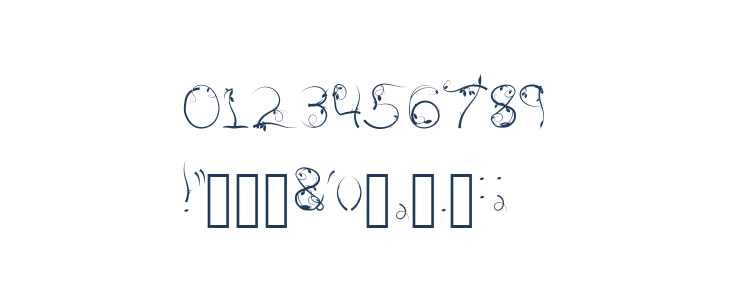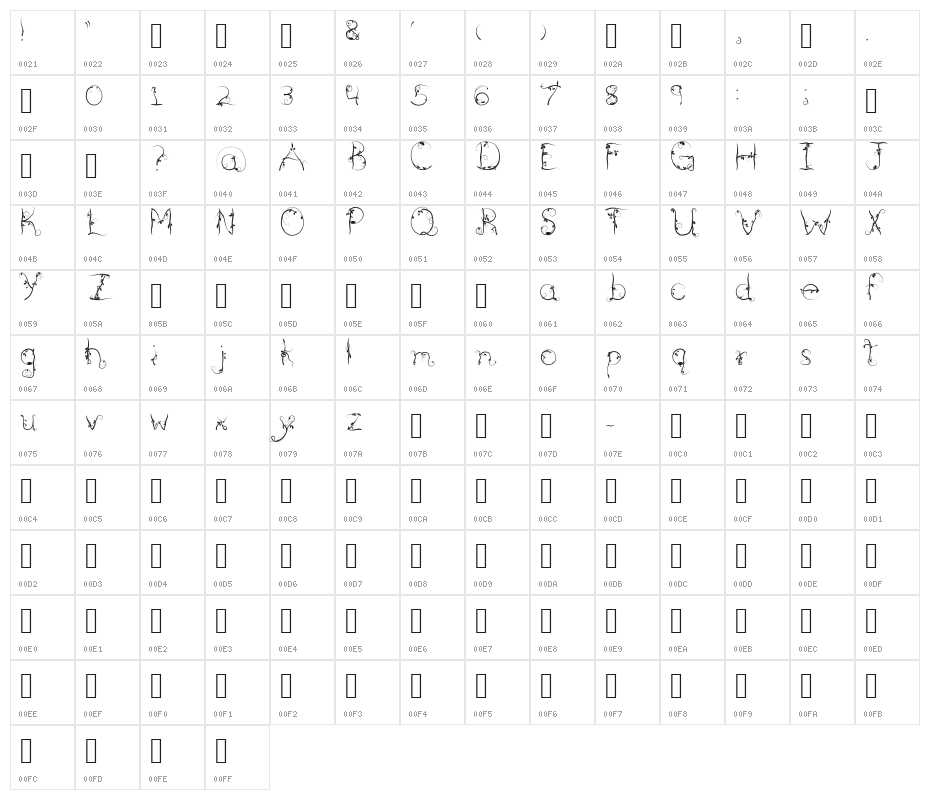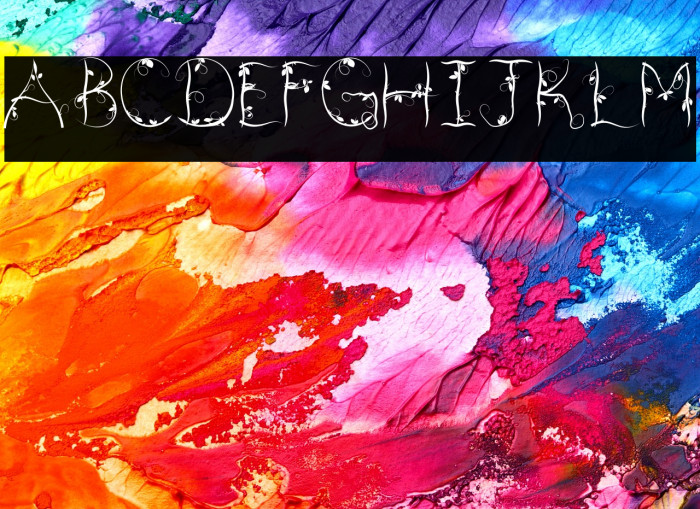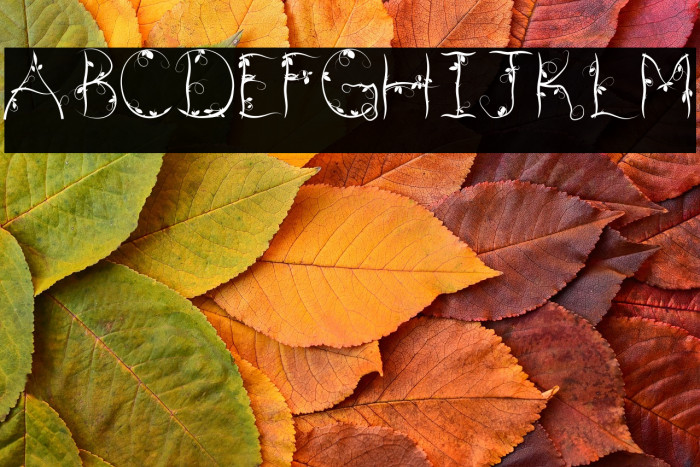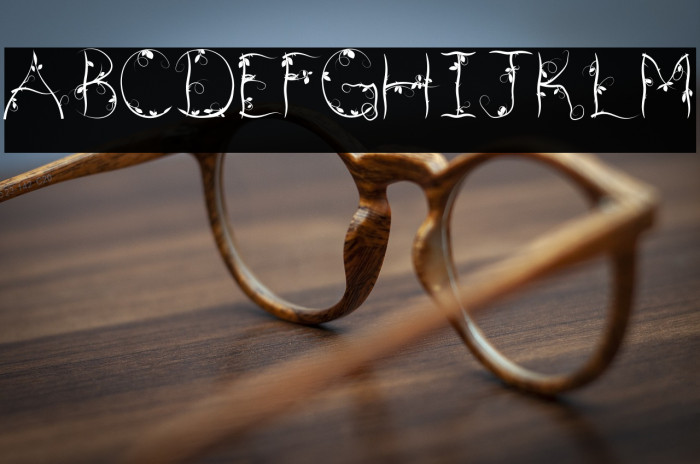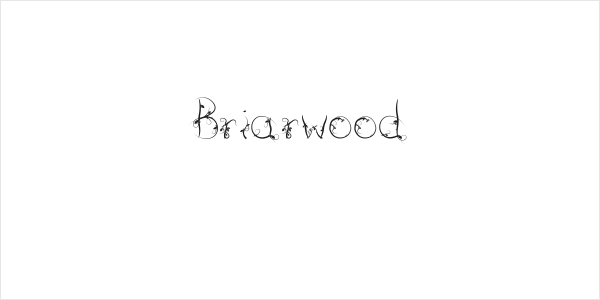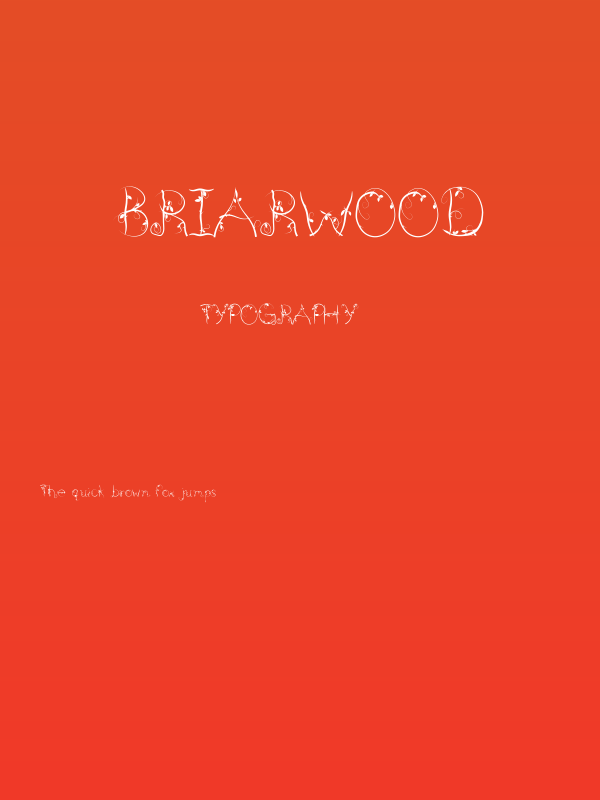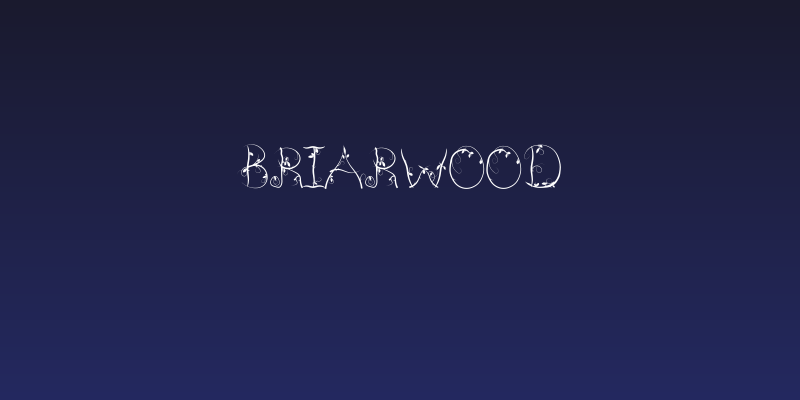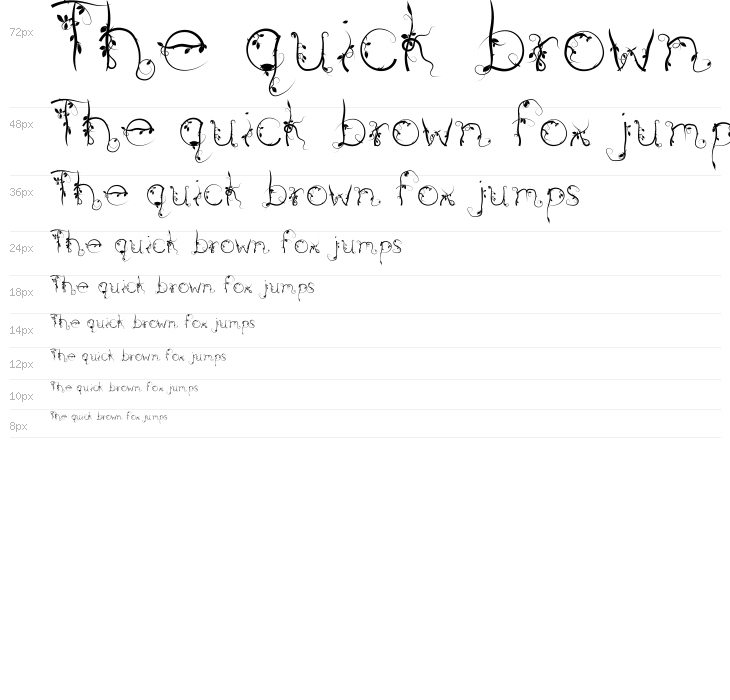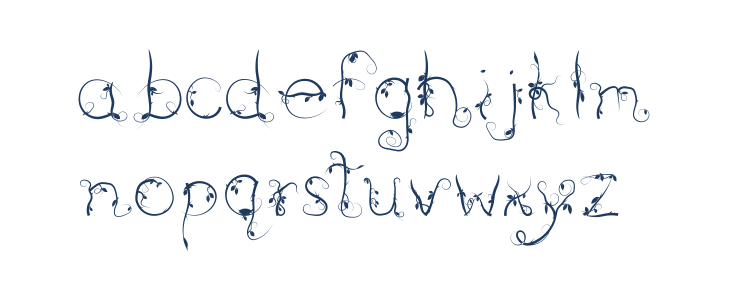
Briarwood Font
Briarwood Description
This font features an intricate and decorative style, with each character adorned with vine-like flourishes and organic elements. The uppercase and lowercase letters are embellished with swirling tendrils, giving the font a whimsical and nature-inspired appearance. The numbers and special characters maintain this elaborate design, ensuring a cohesive look across all glyphs. The font's artistic flair makes it stand out, ideal for projects that require a touch of elegance and creativity.
| Use Case | Headlines, Logos, Artistic projects |
| Proposed Projects | Ideal for wedding invitations, botanical-themed designs, fantasy book covers, and artistic posters. |